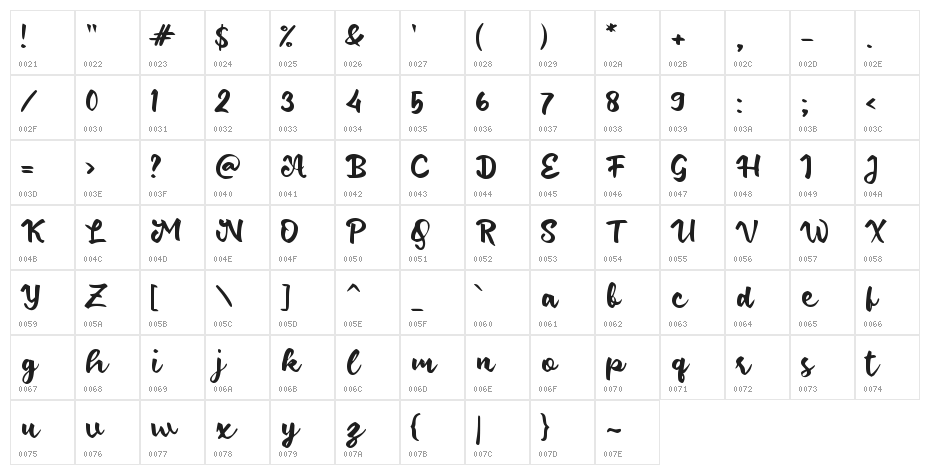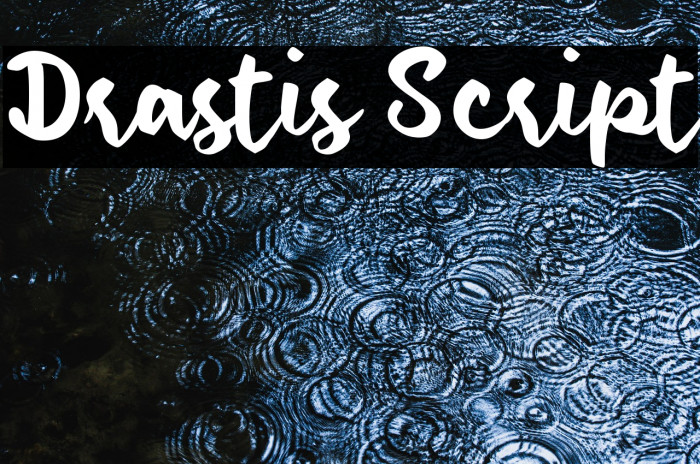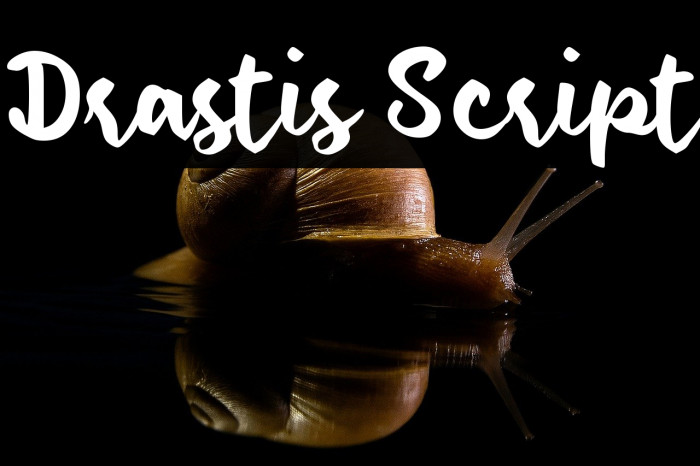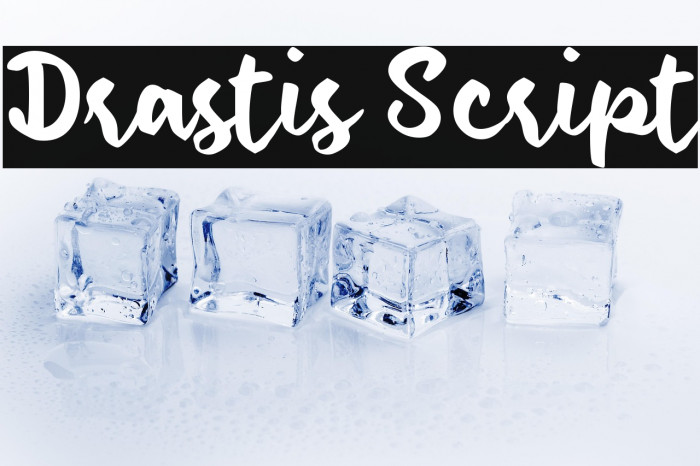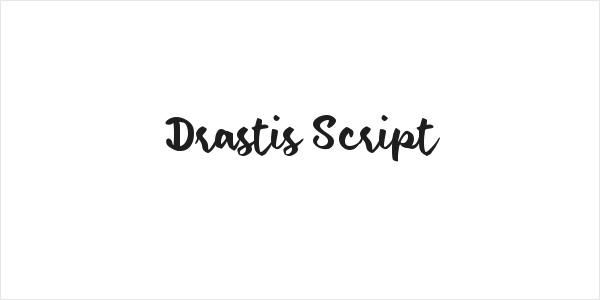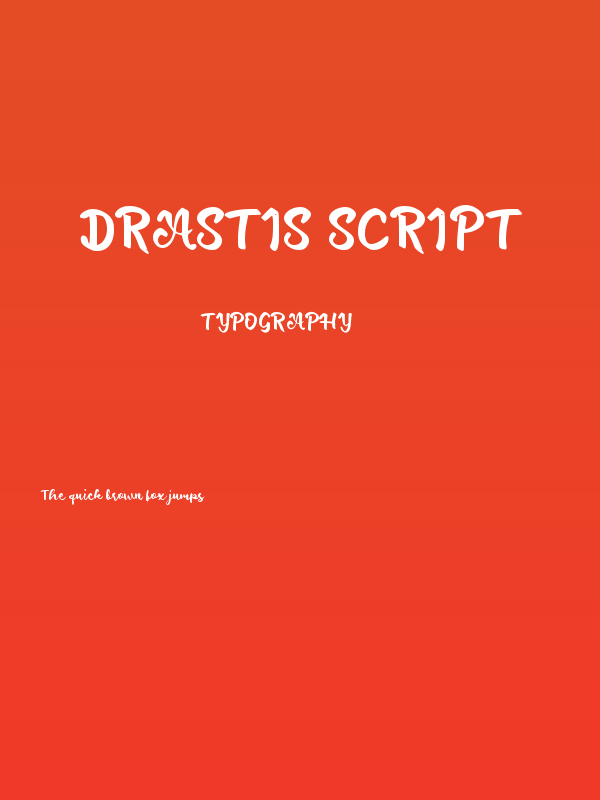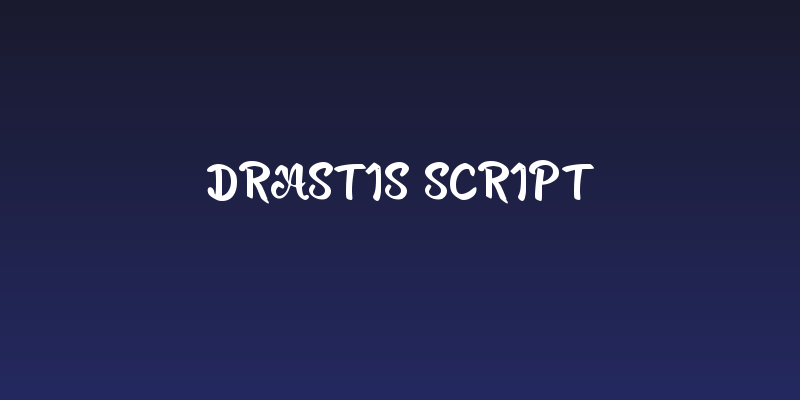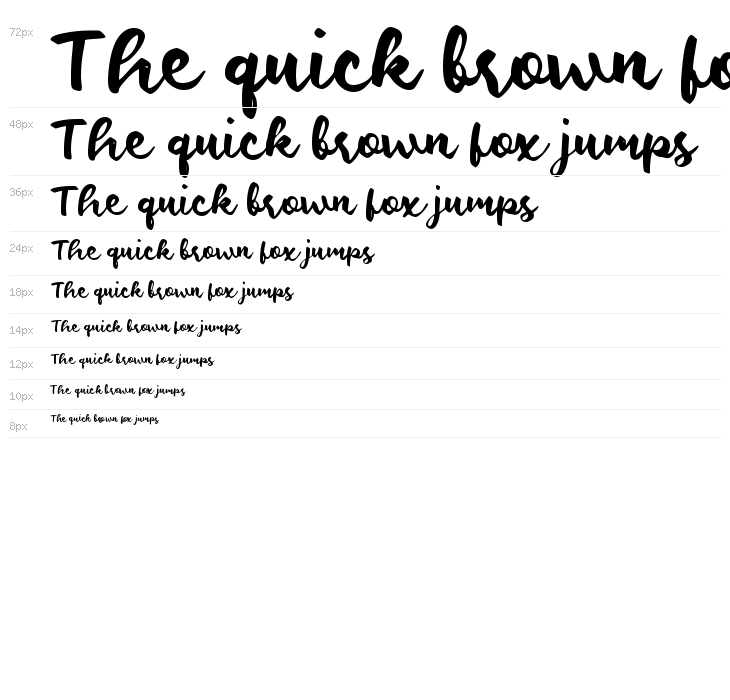
Drastis Script Font
Drastis Script Description
This font features a bold and flowing script style, characterized by its smooth, connected strokes and elegant curves. The uppercase letters maintain a consistent height, while the lowercase letters exhibit a playful and dynamic flow. The numbers are bold and clear, matching the overall style of the alphabet. Special characters are designed with the same fluidity, ensuring a cohesive look across all glyphs. This font exudes a sense of creativity and elegance, making it suitable for projects that require a personal touch.
| Use Case | Logos, Headlines, Invitations |
| Proposed Projects | Ideal for wedding invitations, greeting cards, logos, and branding materials that require a personal and elegant touch. |